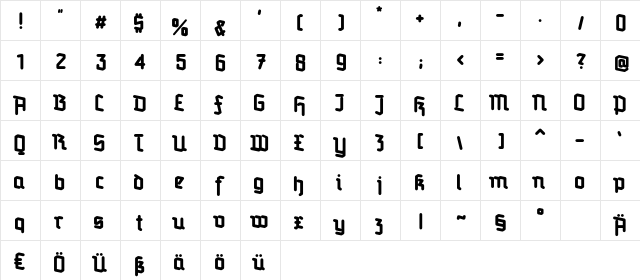
Redifraktur BETA Bold Regular
| Designer | Jakub Stanski |
Design Context for Redifraktur BETA Bold Typeface
Redifraktur BETA Bold channels the dramatic heritage of Fraktur and Gothic scripts, bringing a sense of historical gravitas to any design. Its bold stroke weight gives it real presence on the page.
Well-suited to band logos, craft beer branding, tattoo lettering, and heritage-themed identities.
Font Pairing: Pair with a clean neutral sans-serif for body copy to let Redifraktur BETA Bold's character lead without overwhelming the composition.
Pro Tip: Use Redifraktur BETA Bold sparingly at large sizes. Even a single word set in blackletter can define the visual register of an entire design.